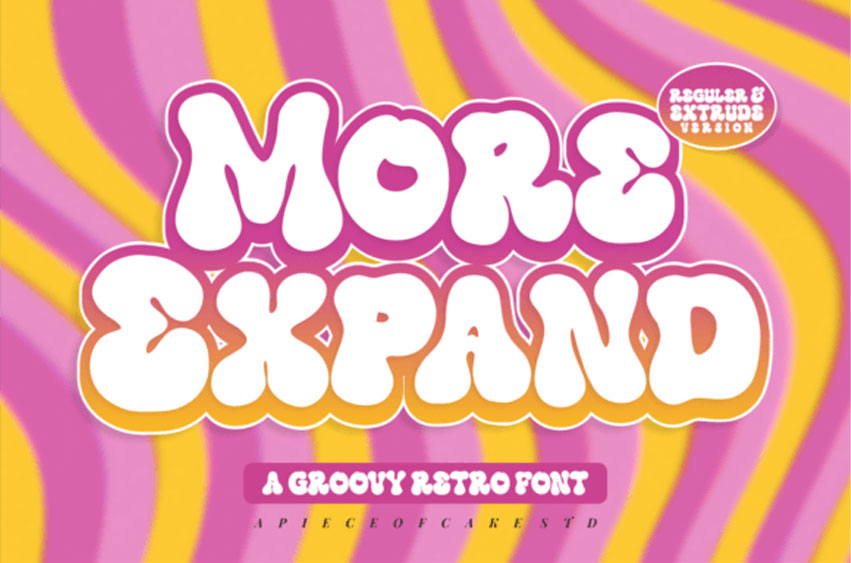
More Expand Font
More Expand Font is a versatile, stylish, and playful retro display font perfect for a wide spectrum of applications such as greeting cards, headlines, and many more!
Add it to any of your creative projects, and it will give them a romantic and exquisite feel. This font is PUA encoded, which means you can access all of the amazing glyphs and ligatures with ease!